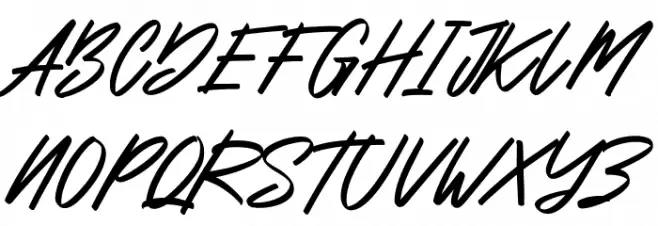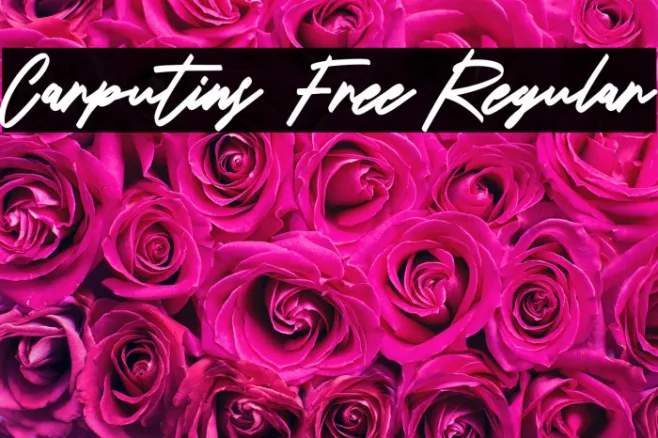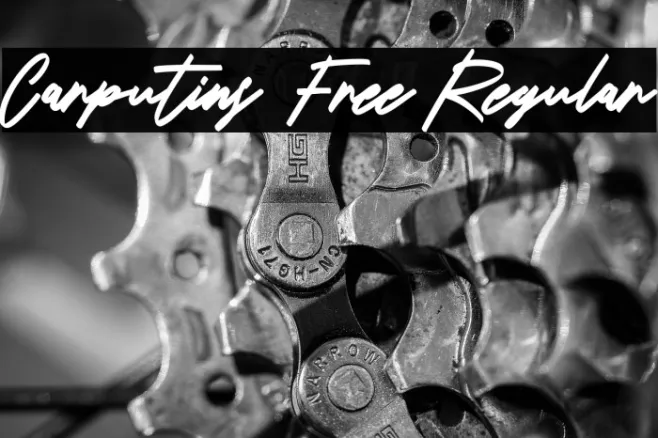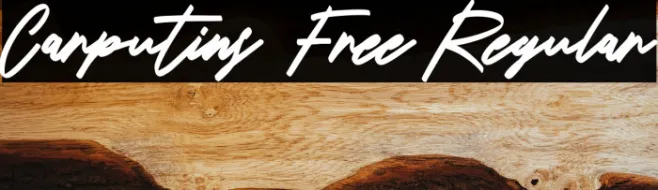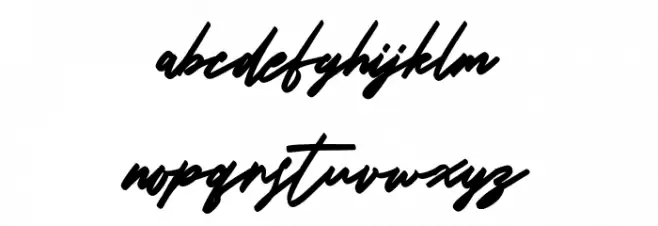
Carputins Free Regular Font
Carputins Free Regular Description
This font exhibits a dynamic and fluid handwritten style, characterized by its bold and expressive strokes. The letters are connected in a cursive manner, giving it a natural and flowing appearance. The uppercase and lowercase characters maintain a consistent style, with a slight slant that enhances its handwritten feel. The numbers and special characters are designed to match the overall aesthetic, ensuring a cohesive look across all elements. This font's energetic and personal touch makes it ideal for projects that require a humanistic and approachable vibe.
A bold, cursive handwritten font with dynamic and fluid strokes.
- Proposed Projects: Ideal for personal branding, invitations, greeting cards, and creative projects that require a personal touch.
- Category: Handwritten
- Character Spacing: Tight
- Use Case: Logos, Headlines, Creative projects